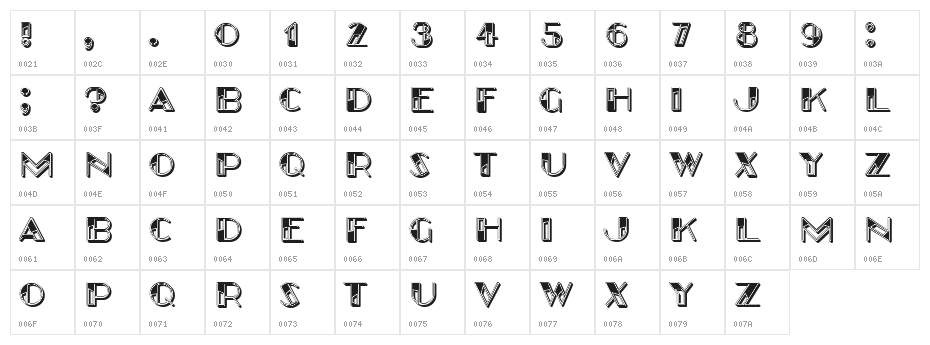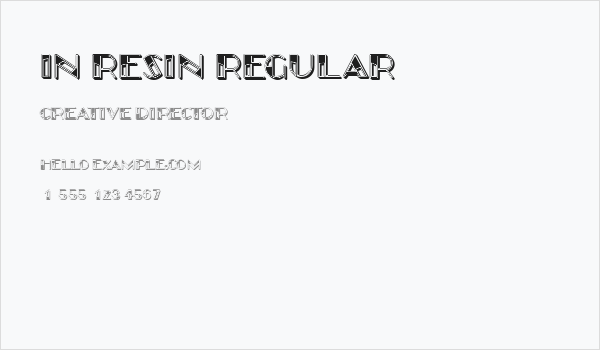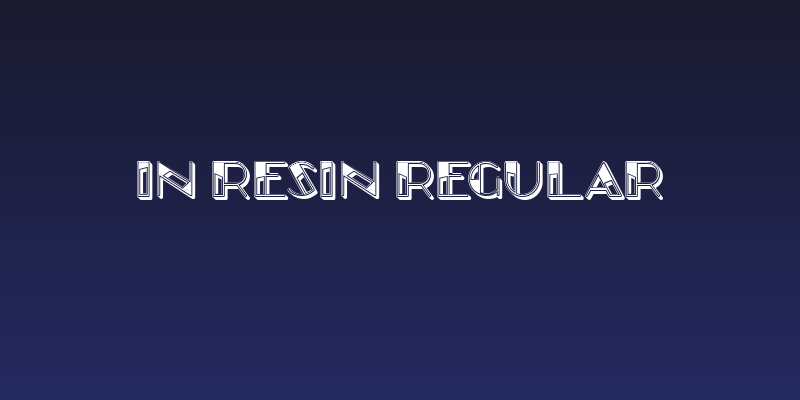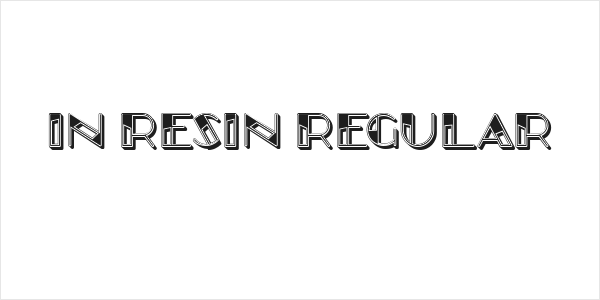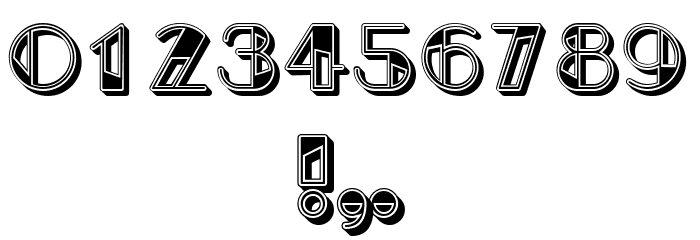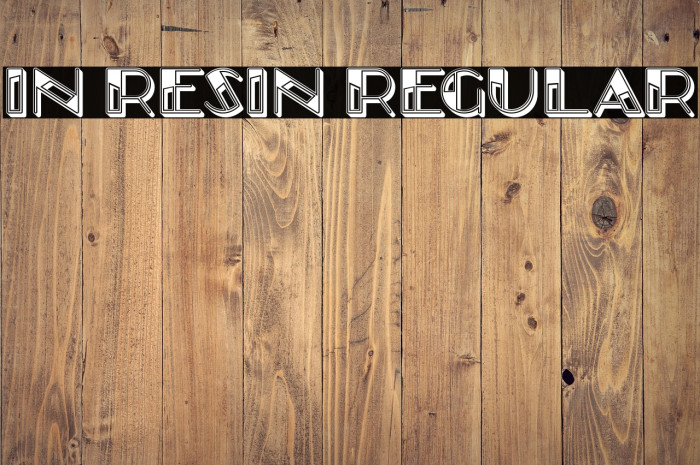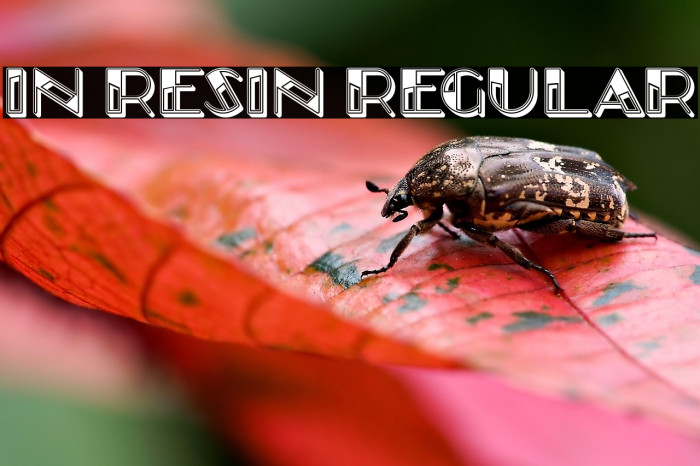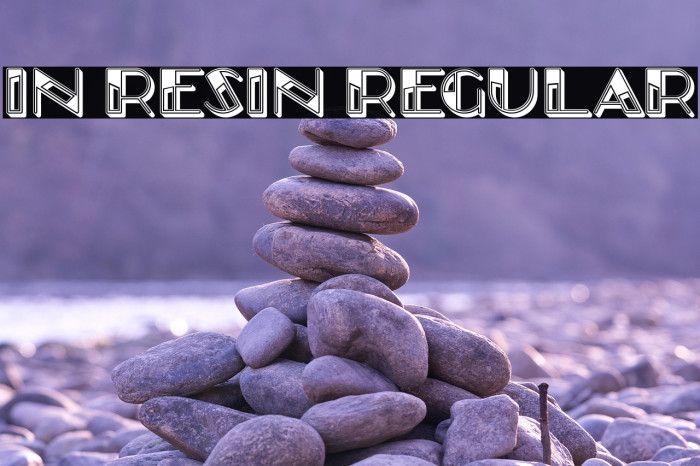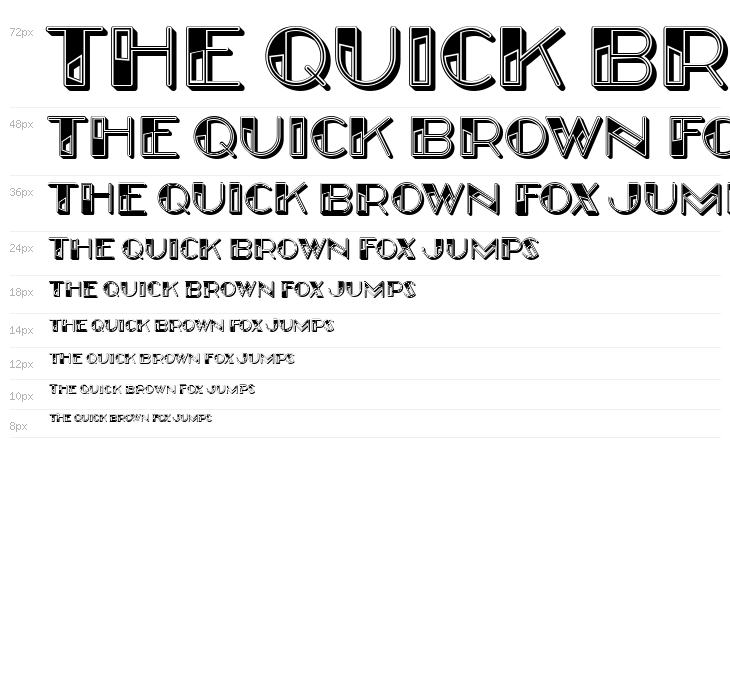
In Resin Regular Font
In Resin Regular Description
This font features a bold, geometric design with a three-dimensional effect. Each character is outlined with a thick border, creating a striking visual impact. The letters have a futuristic and industrial feel, characterized by sharp angles and clean lines. The numbers and special characters maintain the same bold style, ensuring consistency across all elements. This font is highly decorative, making it ideal for attention-grabbing headlines or artistic projects. Its unique style is both modern and retro, reminiscent of vintage sci-fi aesthetics.
| Overall Style | Futuristic, Retro |
| Proposed Projects | Ideal for sci-fi themed posters, video game titles, futuristic branding, and artistic displays. |